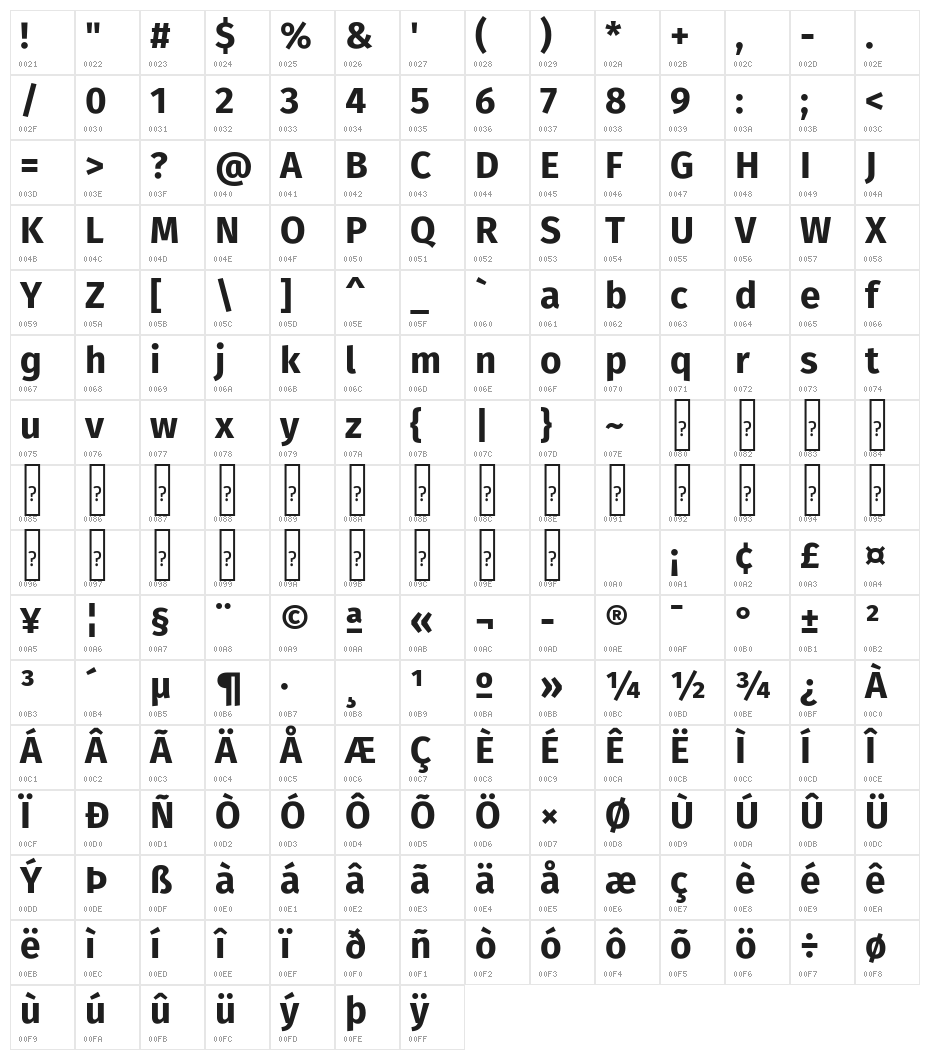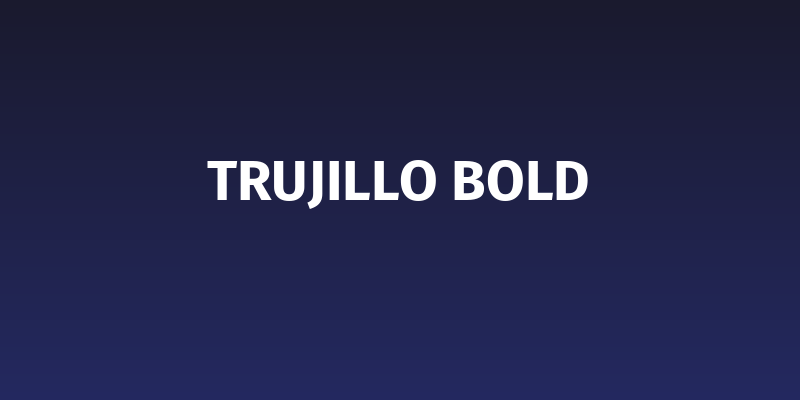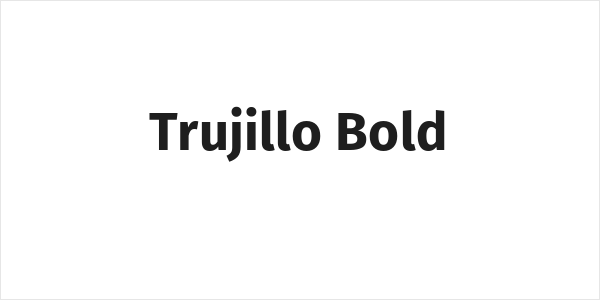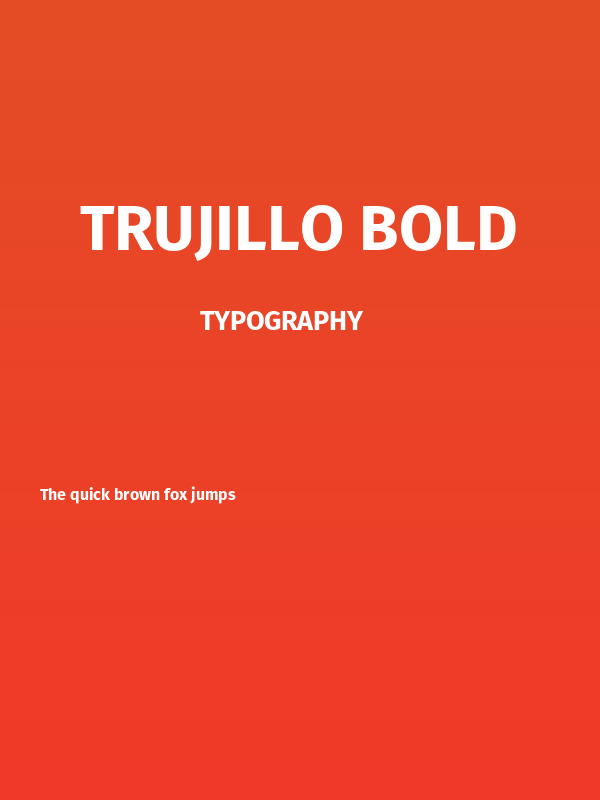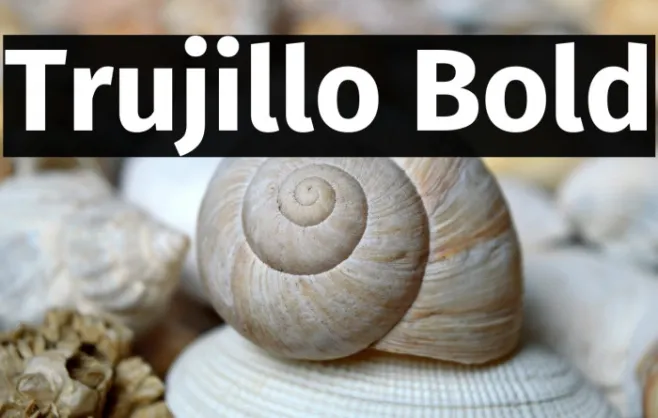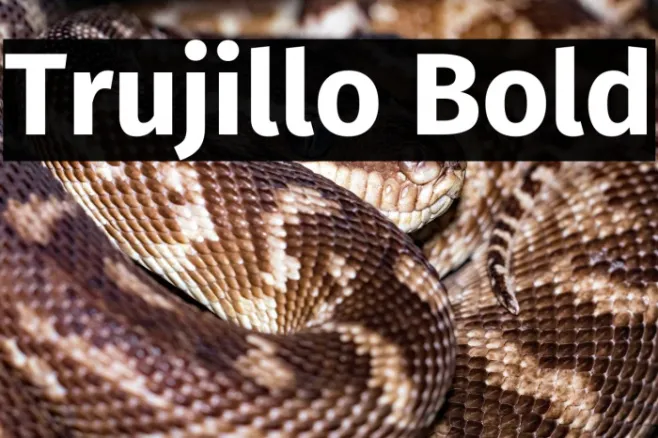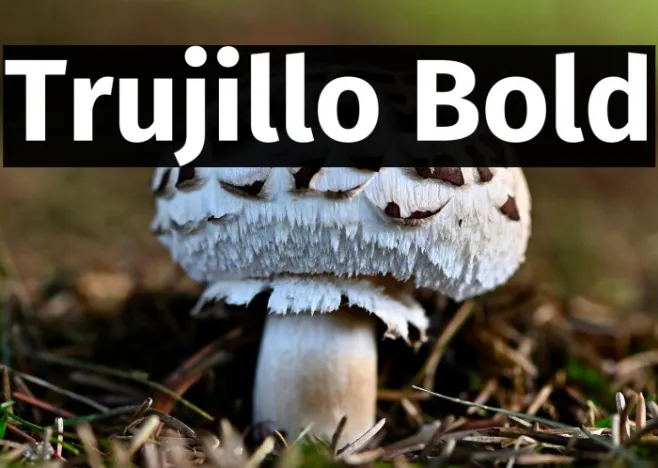
Trujillo Bold Font
Trujillo Bold Description
This font features a bold and robust design with clean lines and a modern aesthetic. The characters are well-proportioned, offering a strong presence that is ideal for making impactful statements. The uppercase letters are slightly taller than the lowercase, providing a balanced and harmonious look. The numerals are clear and distinct, ensuring readability. Special characters are included, maintaining the font's cohesive style. Its bold weight and normal width make it versatile for various design needs.
| Proposed Projects | Ideal for branding, headlines, posters, and advertising materials where a bold statement is needed. |